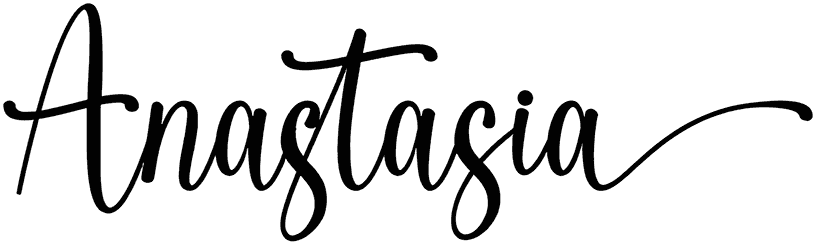
Anastasia Font
If you have a plan to create a curvy and natural visual for the words of your design, this handwritten font would be a perfect selection. The elegant and soft letterform of this thank you font will throw an engaging vibe into your layout. Set the Anastasia font on your new design of Christmas invitation card and impress your viewers.